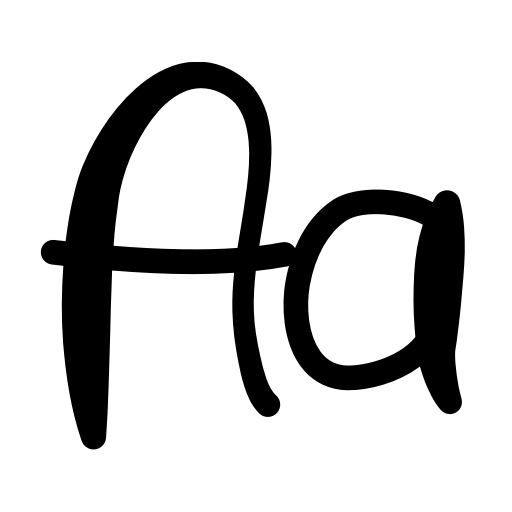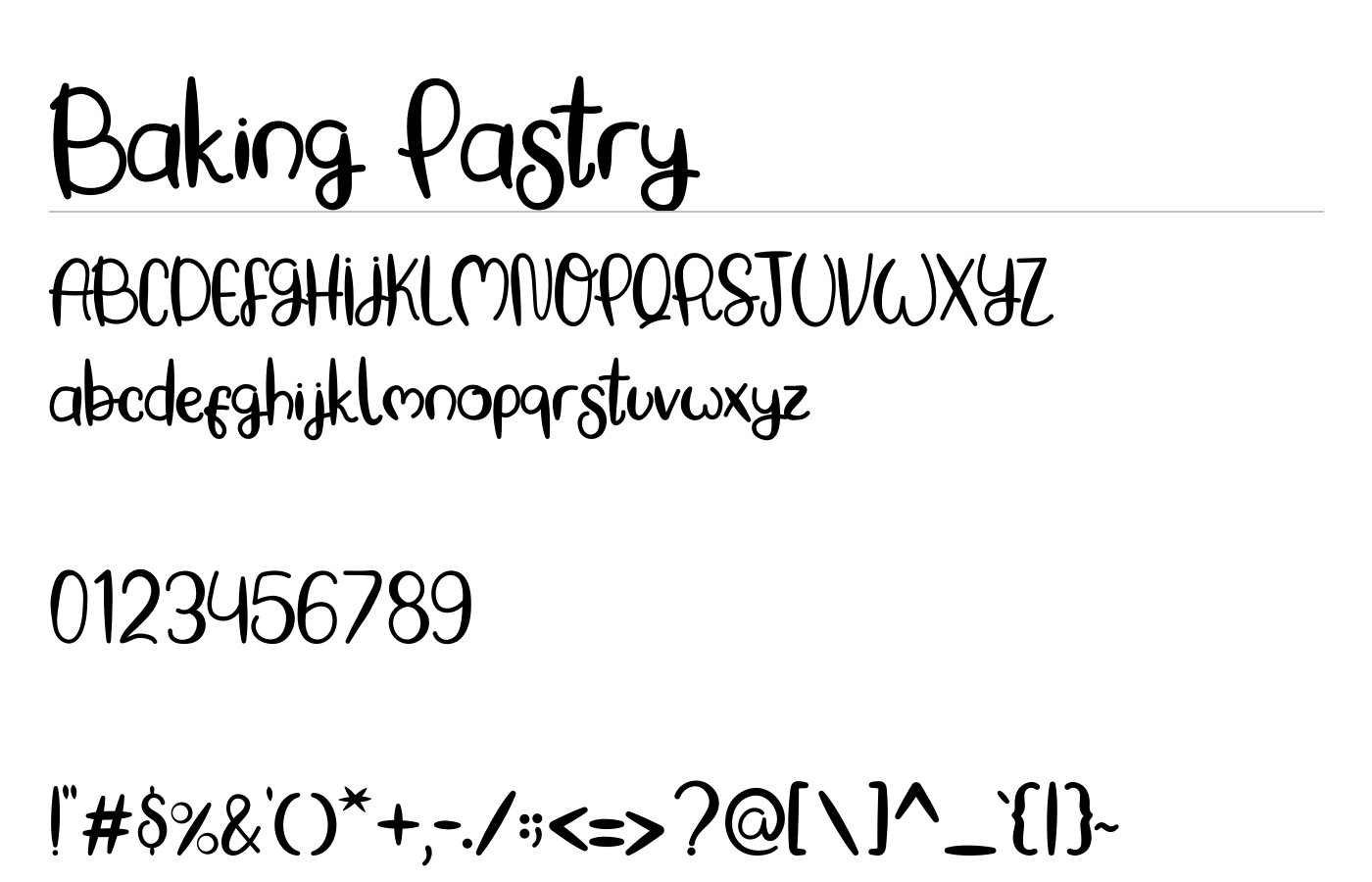
Baking Pastry Font is a playful, hand-drawn script with a whimsical and casual feel. Its thin, slightly irregular strokes and tall letterforms create a friendly and approachable look, perfect for informal designs like bakery logos, children’s products, or creative packaging. This font adds a charming, handmade touch that works best in display use where personality and warmth are key.
Baking Pastry Font
About Baking Pastry Font
| Font family | Baking Pastry Font |
| Designer | Bayu Suwirya |